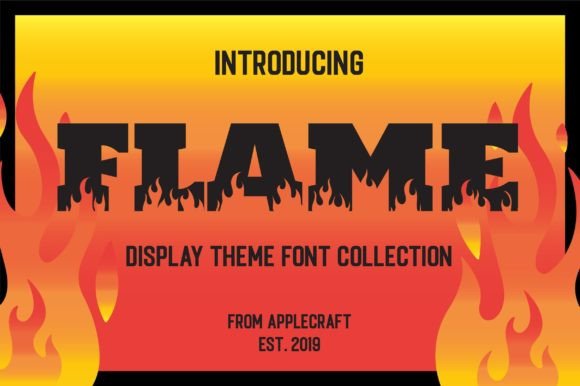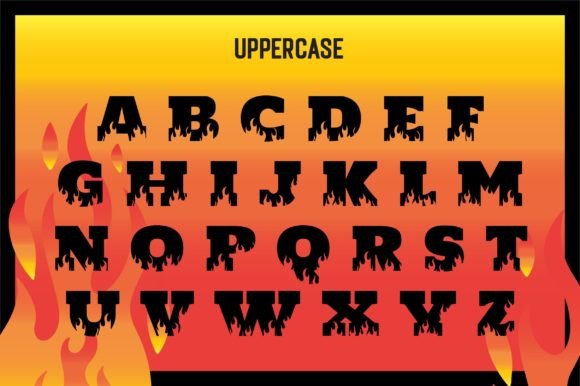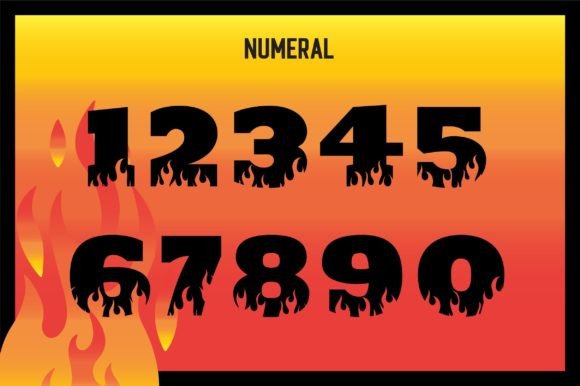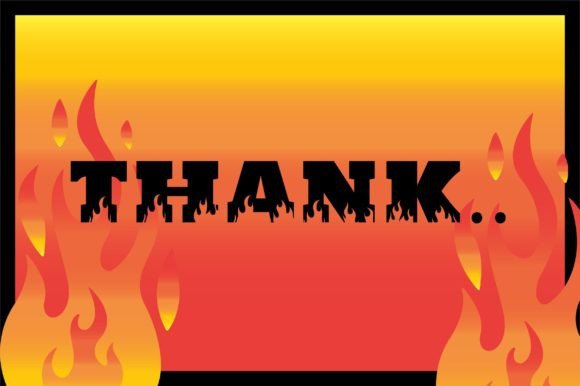
Flame Font: Hot & Fiery Display Font for Bold Designs
About the Flame Font
Presenting Flame Font, a unique and stylish typeface that will make your work stand out. Flame is a decorative font inspired by fire, perfect for quotes, shirt designs, websites, branding, children’s designs, SVG designs, blogs, logos, invitations, and more!
The capital/lowercase letters are the same.
Flame’s playful, energetic style makes it ideal for headlines, short texts on posters or packaging, and logos requiring a bold statement. It excels in projects targeting younger audiences or brands with a vibrant, fun personality. However, its decorative nature makes it unsuitable for body text or UI elements where readability is paramount; long passages set in Flame would be difficult to read.
Pairing Flame with a clean sans-serif like Open Sans for body copy provides excellent contrast and readability. For a more sophisticated feel, consider pairing it with a classic serif such as Garamond. If a handwritten feel is desired, a simple script font could complement its energetic character, although careful consideration of kerning might be necessary to avoid visual clutter.
Flame’s overall personality is best described as bold and playful, with a touch of whimsy. It’s a strong choice for projects aiming for a memorable, youthful, and visually striking impact.